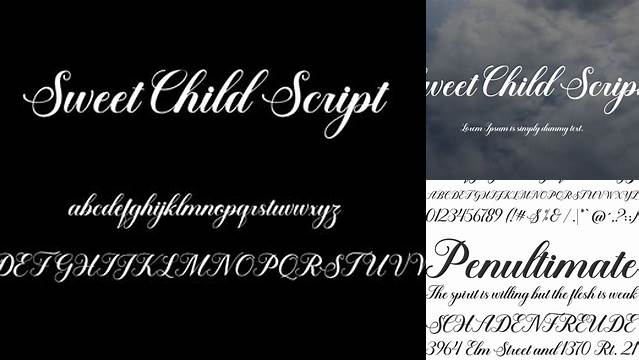
Sweet Child Script: Free Font Download & Usage Guide
Hey guys! Are you on the hunt for a font that’s both elegant and playful? Look no further! The Sweet Child Script regular free font is a fantastic choice for a wide range of projects. In this guide, we’ll dive deep into everything you need to know about this charming typeface, from its unique characteristics to how you can use it to enhance your designs. We'll cover everything from downloading the font to understanding its license and exploring creative ways to use it in your projects. So, let’s jump right in!
1. What Makes Sweet Child Script So Special?
Sweet Child Script isn't just another font; it's a carefully crafted typeface that brings a touch of whimsy and sophistication to any project. The flowing lines and delicate curves give it a handwritten feel, making it perfect for designs that need a personal touch. The font's elegance is balanced by its playful nature, making it versatile enough for various applications, from wedding invitations to children's book covers. What sets this font apart is its ability to convey warmth and friendliness. Its gentle strokes and rounded terminals create a welcoming feel, perfect for projects aiming to connect with their audience on a personal level. It's the kind of font that makes you want to linger over every word, making it a powerful tool for conveying your message effectively. Whether you're designing a logo, crafting a heartfelt message, or creating eye-catching marketing materials, Sweet Child Script can add that extra touch of magic.
4. Sweet Child Script in Graphic Design: Making Your Designs Pop
Sweet Child Script is a versatile font that can add a touch of magic to various graphic design projects. Its elegant and playful nature makes it an excellent choice for anything from branding to web design. When using Sweet Child Script, consider the overall tone and message of your design. This font works particularly well for projects that need a friendly, approachable feel. For example, it's perfect for creating logos for businesses that cater to children or offer creative services. In branding, Sweet Child Script can help create a memorable and distinctive identity. Use it sparingly for headings or taglines to make a statement without overwhelming the design. In web design, Sweet Child Script can add a touch of personality to your website. Use it for headings, calls to action, or even within your site's logo. Just be mindful of readability, especially for body text. For print materials, Sweet Child Script is a fantastic choice for invitations, posters, and packaging. Its delicate curves and flowing lines add an elegant touch to wedding invitations or party flyers. When incorporating Sweet Child Script into your designs, experiment with different sizes and weights to see what works best. Pair it with a clean, sans-serif font for body text to ensure readability. And don't be afraid to play with color and layout to create a design that truly shines.
5. Using Sweet Child Script for Logos: A Touch of Elegance
When it comes to logo design, choosing the right font is crucial. Sweet Child Script can be a fantastic option if you’re looking for a font that’s both elegant and approachable. Its handwritten style adds a personal touch to your brand, making it feel more human and relatable. A logo is often the first thing people see, so it needs to make a strong impression. Sweet Child Script's flowing lines and delicate curves can help your logo stand out, especially if you're aiming for a whimsical or creative vibe. However, it’s essential to use it strategically. Consider the industry and the overall message you want to convey. Sweet Child Script works well for businesses that cater to children, offer handmade goods, or provide creative services. When incorporating Sweet Child Script into a logo, keep it simple and legible. Avoid overcrowding the design with too many elements. The font should be the focal point, so make sure it's easily readable even at smaller sizes. Experiment with different color combinations and placements to see what works best for your brand. Pair it with a clean, sans-serif font for any supporting text to ensure balance and readability. Ultimately, the goal is to create a logo that’s memorable, versatile, and accurately represents your brand. Sweet Child Script can help you achieve that elegant and personal touch you’re looking for.
6. Sweet Child Script in Wedding Invitations: Adding a Personal Touch
Planning a wedding? You probably know that the invitations set the tone for the entire event. Sweet Child Script is an excellent choice for adding a touch of romance and personality to your wedding invitations. Its delicate, handwritten style conveys elegance and warmth, making it perfect for announcing your special day. Wedding invitations are more than just pieces of paper; they’re keepsakes that guests will cherish for years to come. Using Sweet Child Script can make your invitations feel more personal and heartfelt. The flowing lines and graceful curves of the font add a touch of sophistication that’s ideal for a wedding. When designing your invitations, consider using Sweet Child Script for the names of the bride and groom, the date, and the venue. Pair it with a simple, easy-to-read font for the rest of the details to ensure clarity. Think about the overall theme of your wedding and choose colors and paper that complement the font. Soft, pastel shades often work well with Sweet Child Script, enhancing its romantic feel. You can also incorporate decorative elements like floral designs or subtle patterns to add visual interest. Remember, your wedding invitations are a reflection of your personal style as a couple, so have fun and let your creativity shine! Sweet Child Script can help you create invitations that are as unique and special as your love story.
7. Enhancing Book Covers with Sweet Child Script: A Captivating Choice
Book covers play a crucial role in attracting readers, and the font you choose can make a big difference. Sweet Child Script can be a captivating choice for certain genres, particularly those aimed at children or featuring heartwarming stories. A well-designed book cover is like a visual handshake, inviting potential readers to pick up the book and explore its contents. Sweet Child Script's playful yet elegant style can create a sense of warmth and approachability, making it ideal for books with a friendly or whimsical tone. When using Sweet Child Script on a book cover, consider the overall design and target audience. For children's books, its handwritten style can add a touch of innocence and charm. For novels or memoirs, it can convey a personal and intimate feel. Think about the title of the book and how Sweet Child Script can enhance its message. Use it sparingly, focusing on key elements like the title or author's name. Pair it with a clean, readable font for the rest of the text to ensure clarity. Experiment with different colors and sizes to create a visually appealing cover. A well-chosen illustration or graphic can also complement Sweet Child Script, making your book cover truly stand out. Remember, the goal is to create a cover that not only catches the eye but also accurately reflects the book's content. Sweet Child Script can help you achieve that captivating look.
8. Sweet Child Script for Social Media Graphics: Engaging Your Audience
In the fast-paced world of social media, grabbing attention is key. Sweet Child Script can be a fantastic asset for creating eye-catching graphics that engage your audience. Whether you’re promoting a product, sharing a quote, or announcing an event, the right font can make your message stand out. Social media graphics need to be visually appealing and easily readable, especially on small screens. Sweet Child Script's unique handwritten style can add a personal touch to your posts, making them feel more authentic and relatable. When using Sweet Child Script in social media graphics, consider the platform and the audience you’re targeting. For platforms like Instagram or Pinterest, where visuals are paramount, Sweet Child Script can add a touch of elegance and creativity. For platforms like Twitter or Facebook, where text is more prominent, use it sparingly for headings or key phrases to draw attention. Think about the overall aesthetic of your brand and choose colors and backgrounds that complement the font. Use high-quality images and graphics to enhance your message. Experiment with different sizes and placements to create a visually balanced design. And always ensure your text is easy to read, even on mobile devices. By using Sweet Child Script effectively, you can create social media graphics that not only capture attention but also convey your message in a memorable way.
9. Creating Personalized Cards with Sweet Child Script: A Heartfelt Touch
Want to make someone feel truly special? Creating personalized cards with Sweet Child Script is a wonderful way to add a heartfelt touch to any occasion. Whether it's a birthday, anniversary, or just a simple thank you, a handmade card conveys thoughtfulness and care. Personalized cards stand out because they show you've taken the time to create something unique. Sweet Child Script's elegant and handwritten style adds a personal touch that mass-produced cards can't match. When designing your cards, consider the recipient and the message you want to convey. Sweet Child Script is perfect for adding warmth and sincerity to your words. Use it for the main greeting or a special message inside the card. Choose high-quality cardstock and embellishments to enhance the overall look and feel. Think about incorporating hand-drawn elements or small illustrations to complement the font. Experiment with different colors and layouts to create a design that reflects your personal style. Don't be afraid to get creative and add your own unique flair. Whether you're a seasoned crafter or a beginner, creating personalized cards with Sweet Child Script is a fun and rewarding way to show someone you care.
10. Sweet Child Script for Blog Headers: Making a Strong First Impression
Your blog header is one of the first things visitors see, so it’s crucial to make a strong first impression. Using Sweet Child Script for your blog headers can add a touch of personality and elegance, making your blog stand out from the crowd. A well-designed blog header not only grabs attention but also conveys the essence of your brand and content. Sweet Child Script's unique handwritten style can create a welcoming and approachable feel, encouraging visitors to explore further. When designing your blog header, consider your overall branding and target audience. Sweet Child Script works well for blogs that focus on creative topics, lifestyle content, or personal stories. Use it for your blog title or tagline to make a statement. Choose colors and a background image that complement the font and your brand aesthetic. Think about the layout and ensure your header is visually balanced and easy to read. Experiment with different sizes and placements to see what works best. Your blog header should be consistent with the rest of your website design, creating a cohesive and professional look. By using Sweet Child Script effectively, you can create blog headers that not only look beautiful but also help attract and retain readers.
11. Business Cards with Sweet Child Script: A Memorable Impression
In the world of networking, your business card is often the first physical representation of your brand. Using Sweet Child Script on your business cards can help you make a memorable impression, conveying a sense of creativity and personal touch. A well-designed business card not only provides essential contact information but also reflects your brand's identity and values. Sweet Child Script's elegant and handwritten style can add a touch of sophistication, making your card stand out from the standard, corporate look. When designing your business cards, consider your industry and target audience. Sweet Child Script works particularly well for businesses in creative fields, such as design, art, or handmade goods. Use it for your name, title, or company name to add a personal touch. Choose a high-quality card stock and printing method to enhance the overall feel. Think about the layout and ensure your card is clean, uncluttered, and easy to read. Pair Sweet Child Script with a simple, sans-serif font for your contact details to ensure clarity. Experiment with different colors and finishes to create a card that reflects your brand's personality. A memorable business card can help you leave a lasting impression, making it easier to build connections and grow your business. Sweet Child Script can help you achieve that unique and professional look.
12. Sweet Child Script for Posters: Capturing Attention Effectively
Designing a poster that grabs attention requires careful consideration of typography and visual elements. Sweet Child Script can be an excellent choice for posters that aim for a friendly, approachable, or elegant vibe. A well-designed poster should immediately capture the viewer's eye and convey its message clearly and effectively. Sweet Child Script's unique handwritten style can add a touch of personality, making your poster stand out in a sea of standard designs. When using Sweet Child Script for posters, think about the overall theme and message. It works well for events, promotions, or announcements that need a personal or creative touch. Use it for the main headline or key phrases to draw attention. Consider the size and placement of the text, ensuring it's easily readable from a distance. Choose colors that complement the font and the overall design. Think about incorporating images or illustrations to enhance your poster's visual appeal. Experiment with different layouts to create a balanced and eye-catching composition. Remember, the goal is to create a poster that not only looks great but also effectively communicates your message. Sweet Child Script can help you achieve that balance of style and clarity.
13. T-Shirt Designs with Sweet Child Script: Adding a Unique Flair
T-shirts are a fantastic canvas for expressing creativity, and the font you choose plays a crucial role in the design. Sweet Child Script can add a unique flair to your t-shirt designs, making them stand out with its elegant and playful style. A well-designed t-shirt should not only look good but also convey a message or reflect a personal style. Sweet Child Script's handwritten style can bring a personal touch to your designs, making them more relatable and memorable. When using Sweet Child Script for t-shirt designs, consider the overall theme and target audience. It works well for designs that are fun, whimsical, or sentimental. Use it for quotes, slogans, or personalized messages to add character. Think about the size and placement of the text, ensuring it's legible and visually appealing. Choose colors that complement the font and the t-shirt fabric. Experiment with different layouts and graphic elements to create a design that truly shines. Whether you're designing t-shirts for a business, an event, or personal use, Sweet Child Script can help you create unique and stylish apparel.
14. Sweet Child Script in Craft Projects: Unleashing Creativity
Craft projects are all about expressing your creativity, and the fonts you choose can significantly enhance the final result. Sweet Child Script is a versatile font that can add a touch of elegance and charm to a wide range of craft projects. Whether you're creating scrapbook pages, handmade gifts, or home décor items, Sweet Child Script can help you bring your vision to life. Its handwritten style adds a personal touch, making your creations feel more special and unique. When using Sweet Child Script in craft projects, consider the overall theme and style. It works well for projects that are whimsical, romantic, or sentimental. Use it for titles, captions, or personalized messages to add character. Think about the size and placement of the text, ensuring it complements the other elements of your project. Experiment with different colors, materials, and embellishments to create a truly one-of-a-kind piece. Whether you're a seasoned crafter or just starting out, Sweet Child Script can help you unleash your creativity and create beautiful, heartfelt projects.
15. Packaging Design with Sweet Child Script: An Appealing Choice
Packaging design is a crucial aspect of branding, as it's often the first impression customers have of your product. Using Sweet Child Script on your packaging can add an appealing touch, making your products stand out on the shelves. A well-designed package should not only protect the product but also attract the customer's eye and communicate the brand's identity. Sweet Child Script's elegant and playful style can create a sense of warmth and sophistication, making your packaging more inviting. When using Sweet Child Script in packaging design, consider your target audience and the product's nature. It works well for products that are handmade, artisanal, or cater to a younger demographic. Use it for the product name, tagline, or key information to add a personal touch. Think about the overall design and ensure the font complements the colors, graphics, and materials used. Experiment with different layouts and sizes to create a visually balanced and appealing package. A well-designed package with Sweet Child Script can help your product make a lasting impression, leading to increased sales and brand recognition.
16. Sweet Child Script for Newsletters: Engaging Subscribers
Newsletters are a powerful tool for connecting with your audience, and the fonts you choose can significantly impact engagement. Sweet Child Script can add a touch of personality and warmth to your newsletters, making them more inviting and readable. A well-designed newsletter should not only deliver valuable content but also capture the reader's attention and encourage them to take action. Sweet Child Script's handwritten style can create a personal and friendly tone, helping you build stronger relationships with your subscribers. When using Sweet Child Script in newsletters, consider the overall design and purpose. It works well for newsletters that aim to connect on a personal level, share stories, or promote creative content. Use it for headings, subheadings, or call-to-action buttons to add visual interest. Think about the readability of your text and choose a font size that's easy on the eyes. Pair Sweet Child Script with a clean, sans-serif font for the body text to ensure clarity. Experiment with different colors and layouts to create a visually appealing newsletter. By using Sweet Child Script effectively, you can create newsletters that not only deliver your message but also engage and delight your subscribers.
17. Website Design: Sweet Child Script as a Headline Font
Choosing the right font for your website headlines is crucial for creating a strong visual hierarchy and capturing your visitors' attention. Sweet Child Script can be an excellent choice for headlines, adding a touch of elegance and personality to your website's design. Headlines play a key role in guiding visitors through your content and encouraging them to explore further. Sweet Child Script's unique handwritten style can make your headlines stand out, creating a memorable and engaging experience for your audience. When using Sweet Child Script as a headline font, consider your website's overall design and brand identity. It works well for websites that aim for a friendly, creative, or personal feel. Use it for main headlines or section titles to create a clear visual hierarchy. Think about the readability of your headlines and choose a font size that's easy to read on various devices. Pair Sweet Child Script with a clean, sans-serif font for the body text to ensure clarity. Experiment with different colors and spacing to create visually appealing headlines. By using Sweet Child Script effectively, you can enhance your website's design and create a welcoming and engaging experience for your visitors.
18. Sweet Child Script in Invitations: Beyond Weddings
While Sweet Child Script is fantastic for wedding invitations, its versatility extends to various other types of invitations as well. From birthday parties to baby showers, Sweet Child Script can add a touch of elegance and personalization to any event invitation. Invitations set the tone for an event, and choosing the right font is essential for conveying the desired message and style. Sweet Child Script's handwritten style adds a personal touch, making your invitations feel more special and heartfelt. When using Sweet Child Script in invitations, consider the event's theme and target audience. It works well for events that are celebratory, intimate, or creative. Use it for the main details, such as the event name, date, and time, to make them stand out. Think about the overall design and choose colors and embellishments that complement the font. Experiment with different layouts and sizes to create visually appealing invitations. Whether you're hosting a formal gathering or a casual get-together, Sweet Child Script can help you create invitations that reflect the event's spirit and charm.
19. Sweet Child Script and Font Pairing: Finding the Perfect Match
Pairing fonts effectively is a key skill in design, and understanding how to match Sweet Child Script with other fonts can elevate your projects. The right font pairing creates visual harmony and enhances readability, ensuring your message is conveyed clearly and beautifully. Sweet Child Script, with its elegant and handwritten style, pairs well with clean, sans-serif fonts that provide contrast and balance. When pairing Sweet Child Script with other fonts, consider the overall design and purpose. Use it for headings or key phrases and pair it with a simple, readable font for the body text. Some excellent sans-serif pairings include Open Sans, Montserrat, and Lato. These fonts offer a clean and modern look that complements Sweet Child Script's playful elegance. Experiment with different font sizes and weights to create a clear visual hierarchy. Avoid pairing Sweet Child Script with other script fonts, as this can create a cluttered and overwhelming look. By choosing the right font pairings, you can create designs that are both visually appealing and easy to read. Pairing fonts with Sweet Child Script is important for readability, legibility and aesthetics.
20. Sweet Child Script for Quote Graphics: Inspiring Your Audience
Quote graphics are a popular way to engage audiences on social media, and the font you choose can significantly impact their effectiveness. Sweet Child Script can add a touch of warmth and personality to your quote graphics, making them more inspiring and shareable. Quote graphics should not only feature meaningful words but also be visually appealing to capture attention. Sweet Child Script's handwritten style can make your quotes feel more authentic and heartfelt, connecting with your audience on an emotional level. When using Sweet Child Script for quote graphics, consider the tone and message of the quote. It works well for quotes that are uplifting, motivational, or sentimental. Use it for the main quote text to make it stand out. Choose a background image or color that complements the font and the quote's theme. Think about the layout and ensure your quote is easy to read and visually balanced. Experiment with different sizes and placements to create an eye-catching graphic. By using Sweet Child Script effectively, you can create quote graphics that not only inspire but also resonate with your audience.
21. Sweet Child Script for Labels: Adding a Personal Touch to Organization
Labels are essential for organization, and using Sweet Child Script can add a personal and stylish touch to your labeling projects. Whether you're organizing your pantry, crafting supplies, or office space, Sweet Child Script can make your labels both functional and visually appealing. Personalized labels not only help you keep things tidy but also add a touch of personality to your space. Sweet Child Script's handwritten style can make your labels feel more custom and unique. When using Sweet Child Script for labels, consider the purpose and placement of the label. It works well for labels that need a personal or decorative touch. Use it for the main text, such as the item name or category. Think about the size and readability of the font, ensuring it's easy to read at a glance. Choose a label material and color that complements the font and your organization system. Experiment with different layouts and designs to create labels that are both functional and beautiful. By using Sweet Child Script effectively, you can transform your labeling projects from a chore into a creative endeavor.
22. Sweet Child Script for Invitations: Baby Showers and Beyond
Invitations are a crucial element of any celebration, and Sweet Child Script can be a delightful choice for baby showers and other special occasions. Its whimsical and elegant style adds a touch of sweetness and charm to your invitations, setting the perfect tone for the event. Whether you're planning a baby shower, a christening, or a first birthday party, Sweet Child Script can help you create invitations that are both memorable and heartfelt. Its handwritten style brings a personal touch to your invitations, making them feel extra special for your guests. When using Sweet Child Script for invitations, consider the event's theme and color palette. It pairs well with soft, pastel hues and playful graphics, creating a cheerful and inviting look. Use it for the event details, such as the date, time, and location, to make them stand out. Think about the overall layout and design, ensuring your invitation is visually balanced and easy to read. Experiment with different paper types and embellishments to add a unique flair to your invitations. By incorporating Sweet Child Script, you can create invitations that perfectly capture the joy and excitement of the celebration.
23. Designing Posters with Sweet Child Script: Event Promotions
Creating eye-catching posters is essential for promoting events, and Sweet Child Script can be a valuable asset in your design arsenal. Its charming and elegant style adds a touch of personality to your posters, helping them stand out and attract attention. Whether you're promoting a concert, a festival, or a community event, Sweet Child Script can help you create posters that effectively communicate your message and generate excitement. A well-designed poster should not only be visually appealing but also convey key information, such as the event name, date, and location, clearly and concisely. When using Sweet Child Script for posters, consider the target audience and the event's tone. It works well for events that are fun, creative, or family-friendly. Use it for the main headline or key details to draw the viewer's eye. Think about the color palette and graphics, ensuring they complement the font and the event's theme. Experiment with different layouts and compositions to create a poster that is both informative and visually engaging. By leveraging Sweet Child Script, you can design posters that effectively promote your event and capture the essence of the occasion.
24. Sweet Child Script for Home Decor Projects: Personalizing Your Space
Home decor projects offer a wonderful opportunity to express your creativity and personalize your living space, and Sweet Child Script can add a touch of warmth and charm to your designs. Whether you're creating wall art, decorative signs, or personalized gifts, Sweet Child Script can help you infuse your home with your unique style and personality. Using fonts in your home decor projects allows you to incorporate meaningful quotes, family names, or decorative elements, creating a space that is both beautiful and personal. When using Sweet Child Script for home decor, consider the overall aesthetic of your home and the style of the room. It works well in spaces that embrace a cozy, rustic, or whimsical vibe. Use it for wall decals, framed prints, or decorative lettering to add a touch of elegance. Think about the color palette and materials, ensuring they complement the font and the room's decor. Experiment with different sizes and placements to create visually appealing pieces that enhance your living space. By incorporating Sweet Child Script into your home decor projects, you can transform your house into a home filled with character and warmth.
25. Social Media Branding with Sweet Child Script: Building a Cohesive Look
In today's digital world, social media branding is crucial for building a consistent and recognizable online presence, and Sweet Child Script can play a key role in creating a cohesive look for your brand. Your social media platforms are often the first point of contact with potential customers, so it's essential to create a visually appealing and consistent brand identity across all your channels. Using a consistent font like Sweet Child Script in your social media graphics, profile headers, and captions can help you establish a strong brand identity and make your content easily recognizable. When incorporating Sweet Child Script into your social media branding, consider your brand's personality and target audience. It works well for brands that aim for a friendly, creative, or personal feel. Use it for your profile name, logo, and key headlines to create a consistent visual style. Think about the color palette and imagery you use, ensuring they complement the font and your brand's overall message. Experiment with different layouts and designs to create visually engaging content that captures attention and reinforces your brand identity. By using Sweet Child Script consistently across your social media channels, you can build a strong and cohesive brand presence that resonates with your audience.
26. Sweet Child Script for Thank You Notes: Expressing Gratitude
Expressing gratitude is a meaningful gesture, and using Sweet Child Script for thank you notes adds a personal and heartfelt touch to your message. Whether you're thanking someone for a gift, a kindness, or their support, Sweet Child Script can help you convey your appreciation in a sincere and stylish way. A handwritten note carries a special weight, showing the recipient that you've taken the time and effort to express your gratitude. Sweet Child Script's elegant and flowing style adds a touch of warmth and sincerity to your words, making your thank you notes even more meaningful. When using Sweet Child Script for thank you notes, consider the recipient and the occasion. It works well for both formal and informal thank yous, adding a touch of elegance to any message. Use it for the main body of your note or to highlight key phrases, such as